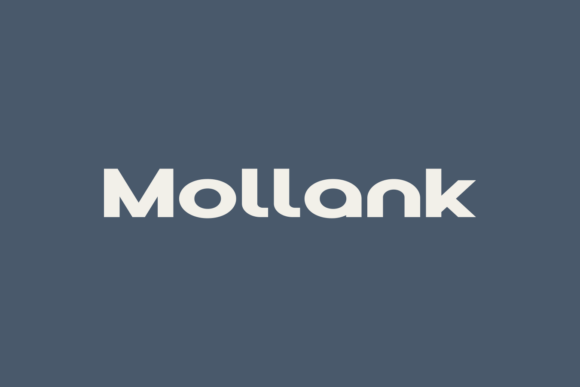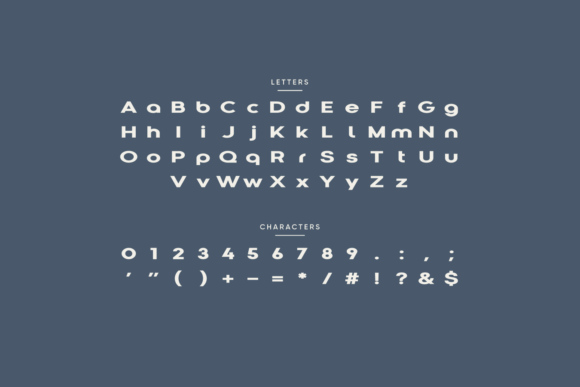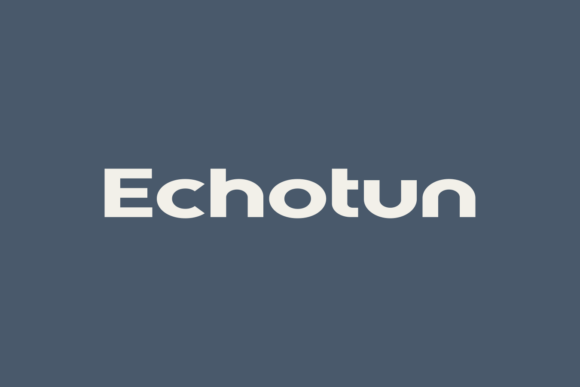
Introduction to Quoly Font
As a designer, have you ever stared at a blank canvas, waiting for the perfect font to bring your creative project to life? The search is over. Imagine a world where every detail matters, and your design stands out from the crowd. Welcome to the world of Quoly Font, a meticulously crafted typeface designed specifically for logos, branding, headers, and titles.
With its precise spacing tailored for impactful logo and branding materials, Quoly Font ensures your design makes a lasting impression. Whether you’re working on a high-quality visual project or need a reliable design resource, this font is the perfect choice. Its versatility makes it suitable for body text, and its high-quality aesthetic excels in visual applications where every detail counts.
Whether you’re a seasoned designer or just starting out, Quoly Font is a valuable addition to your toolkit. With a free download available, you can elevate your design projects and take your creative work to the next level. So why wait? Dive into the world of Quoly Font and discover a new level of design excellence.
Key Features of Quoly Font
- Unique characteristics include elegant lines, modern flair, and versatility in application
Honest Review: Quoly Font
As a designer, I’m always on the lookout for high-quality design resources that can elevate my creative projects. The Quoly Font is one such resource that caught my attention, and I’m excited to share my honest review with you.
Here’s what I like about the Quoly Font:
- ✨ High-quality design: The Quoly Font is beautifully crafted, with clean lines and a modern aesthetic that makes it perfect for a variety of creative projects.
- ✨ Versatile: This font is highly versatile, making it suitable for a range of applications, from digital design to print materials.
- ⚠️ Limited characters: While the Quoly Font is suitable for most design needs, it may not be the best choice for projects that require a large character set.
- ⚠️ No transparent background: If you need a font with a transparent background, the Quoly Font may not be the best option.
Overall, the Quoly Font is a solid choice for designers who are looking for a high-quality, versatile font for their creative projects. While it has some limitations, its benefits far outweigh its drawbacks, making it a valuable resource in any design arsenal.
Quoly Font is a high-quality, versatile design resource perfect for creative projects. Its unique style and transparent background make it an ideal choice for designers looking to add a touch of elegance to their work.
For optimal results, use Quoly Font on a transparent background to give your design a clean and modern look. You can also experiment with different font sizes and styles to create a unique and eye-catching design.
Quoly Font is perfect for a variety of creative projects, including:
1. Business cards and letterheads.
2. Brochures and flyers.
3. Social media graphics and advertisements.